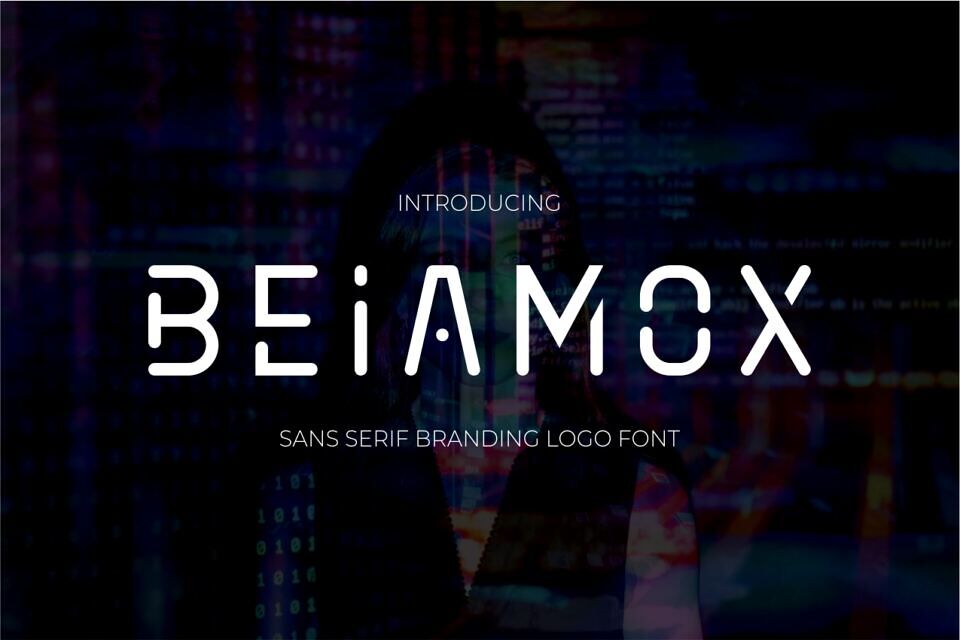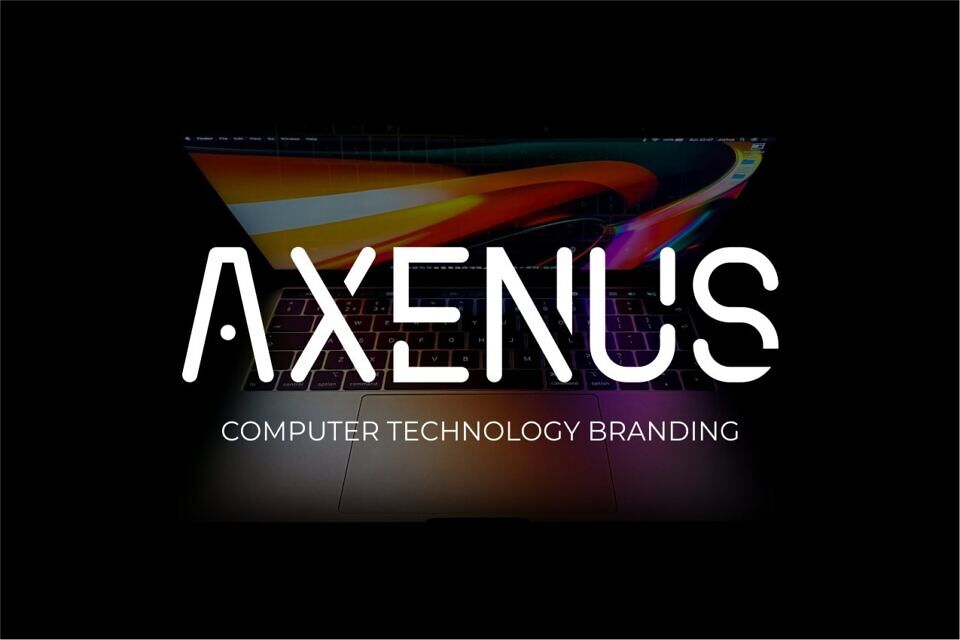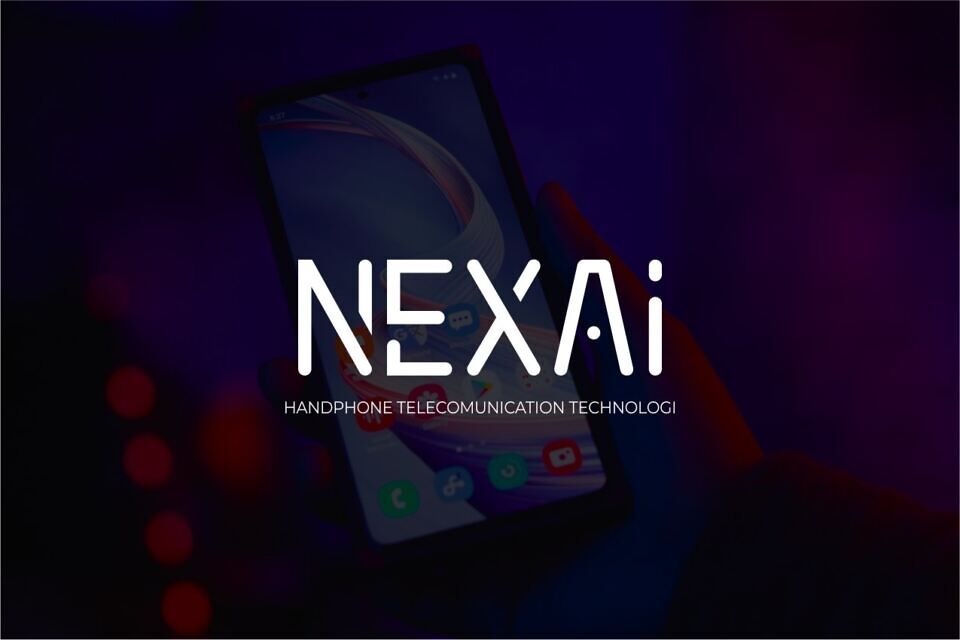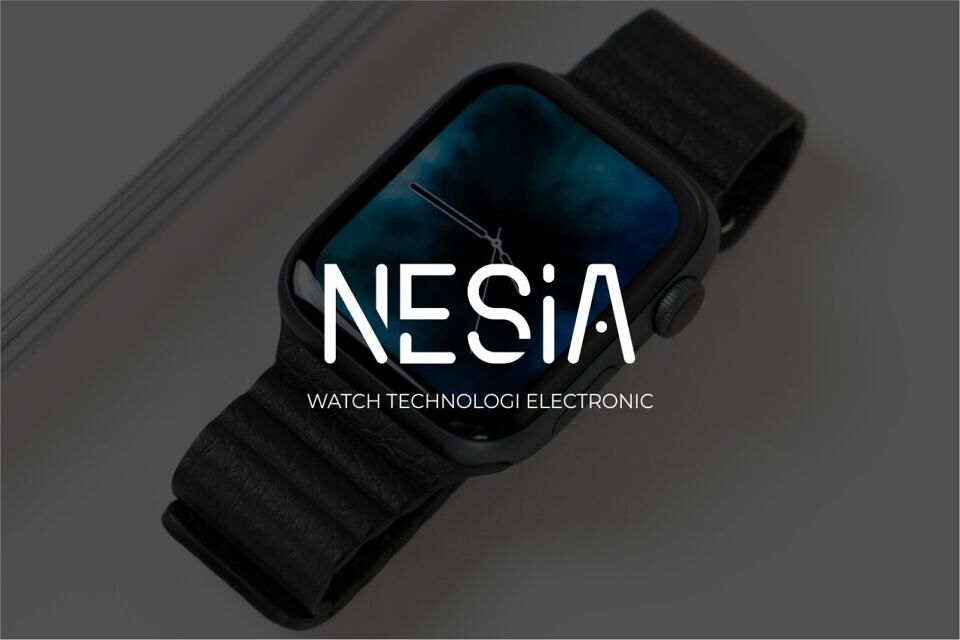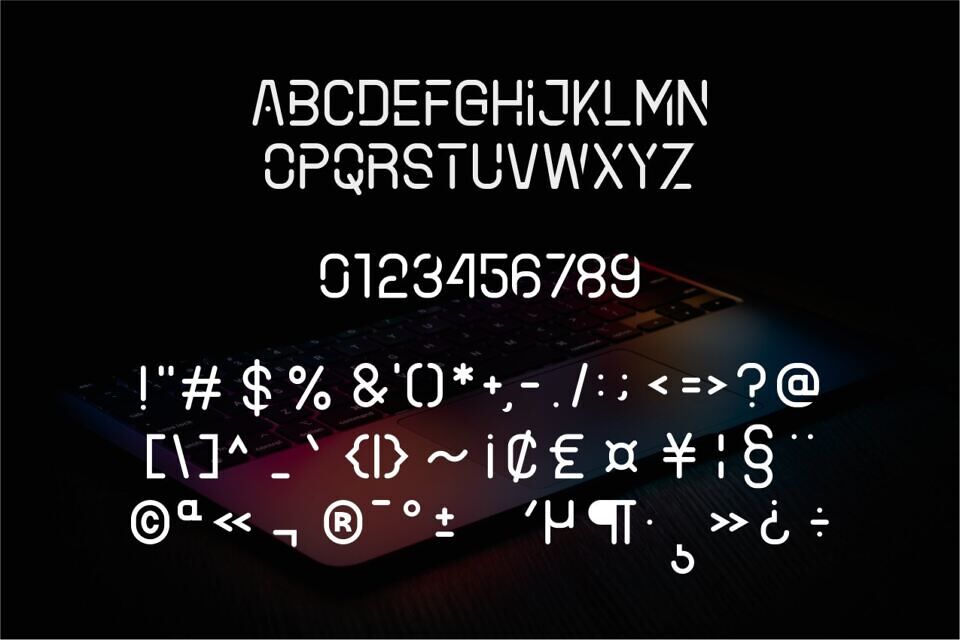
Beiamox Font
The Beiamox font is a futuristic font that is all the time modern and very popular, coming in a modern style to become a favorite with the market. We keep this font looking elegant, classy, ​​modern, stylish, modern, and easy to use.
Beiamox Font is a great choice for logos, brands, company names, fashion, food menus, brand names, branding, quotes, album covers, and other projects. Beiamox fonts are here to take your designs to the next level!